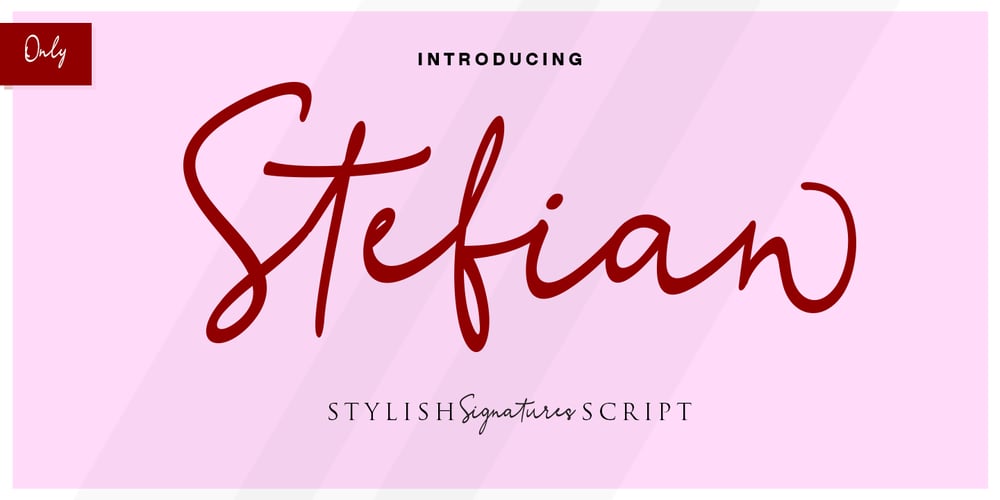
Stefian Script
Stefian Script font
Stefian Script Font Family was designed by Munawir and published by Mightype. Stefian Script contains 1 styles and family package options. Stefian Script is a modern calligraphy font with the current handwriting style. This font is perfect for branding, wedding invites, magazines, mugs, business cards, quotes, posters, and more, you can try it first if you want to buy this font. Stefian Script is equipped with 526 glyphs and has 97 ligatures. By having so many glyphs you will be able to choose the letters according to your tast and needs. With lots of variations and options for each letter, you can customize on your design needs. You need a program that supports OpenType features such as Adobe Photoshop Cs / Adobe Photoshop CC, Adobe Illustrator CS / Adobe Illustrator CC, Adobe Indesign and Corel Draw and many more programs that support OpenType. If you don’t have a program that supports OpenType, you can access all the alternate glyphs using Font Book (Mac) or Character Map (Windows) If you have any question, do not hesitate to contact me by email mightype89@gmail.com Thanks and happy designing 🙂